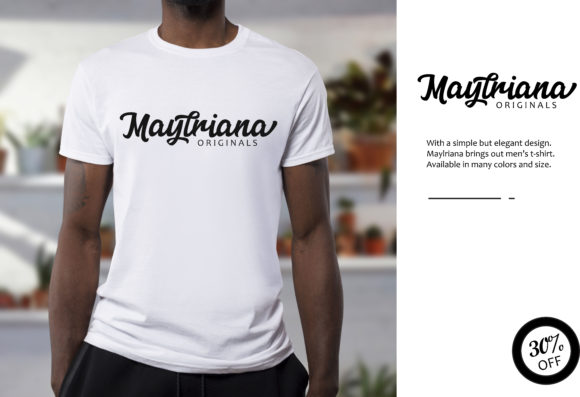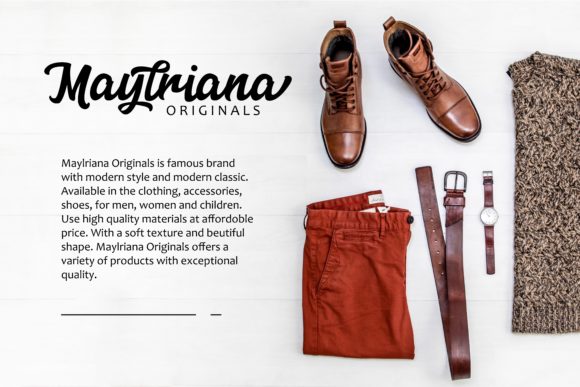
Gadhen Script Font
db-ku.com - Script & Handwritten -- The Gadhen is a striking script font. It has a natural handwritten touch which is perfect for adding a personal touch to your designs.